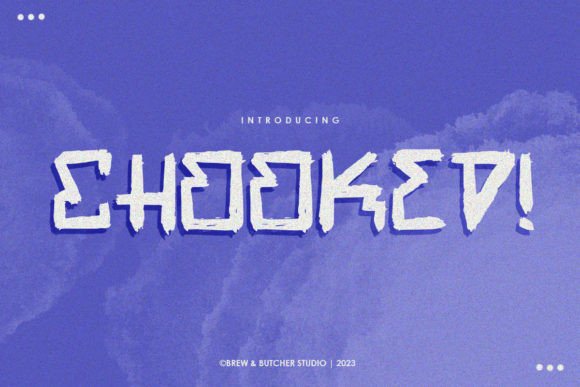
Dive into the realm of musical expression with Chooked Font, a creation by brewandbutcher that redefines the art of display typography. Step into a world where your designs dance to the rhythm of brushy strokes and captivating forms, leaving an unforgettable mark on your audience.
Chooked Font is not just a font; it's a symphony of creativity waiting to be unleashed. Its bold and thick style exudes a sense of power and determination, inviting you to make a statement with every word you write. Unleash your inner artist and let your designs sing with the energy and passion that Chooked Font embodies.
With Chooked Font at your fingertips, you'll find endless opportunities to captivate and inspire. Craft mesmerizing headers that demand attention, create posters that ignite the imagination, and design flyers that leave an indelible mark. Whether it's a landing page that captivates or a portfolio that showcases your talent, Chooked Font is the perfect companion to elevate your designs to new heights.
Don't settle for ordinary fonts that blend into the background. Embrace the uniqueness of Chooked Font and let it amplify your message. From name writing that exudes personality to album covers that resonate with the soul, Chooked Font is the key to unlocking your creative potential.